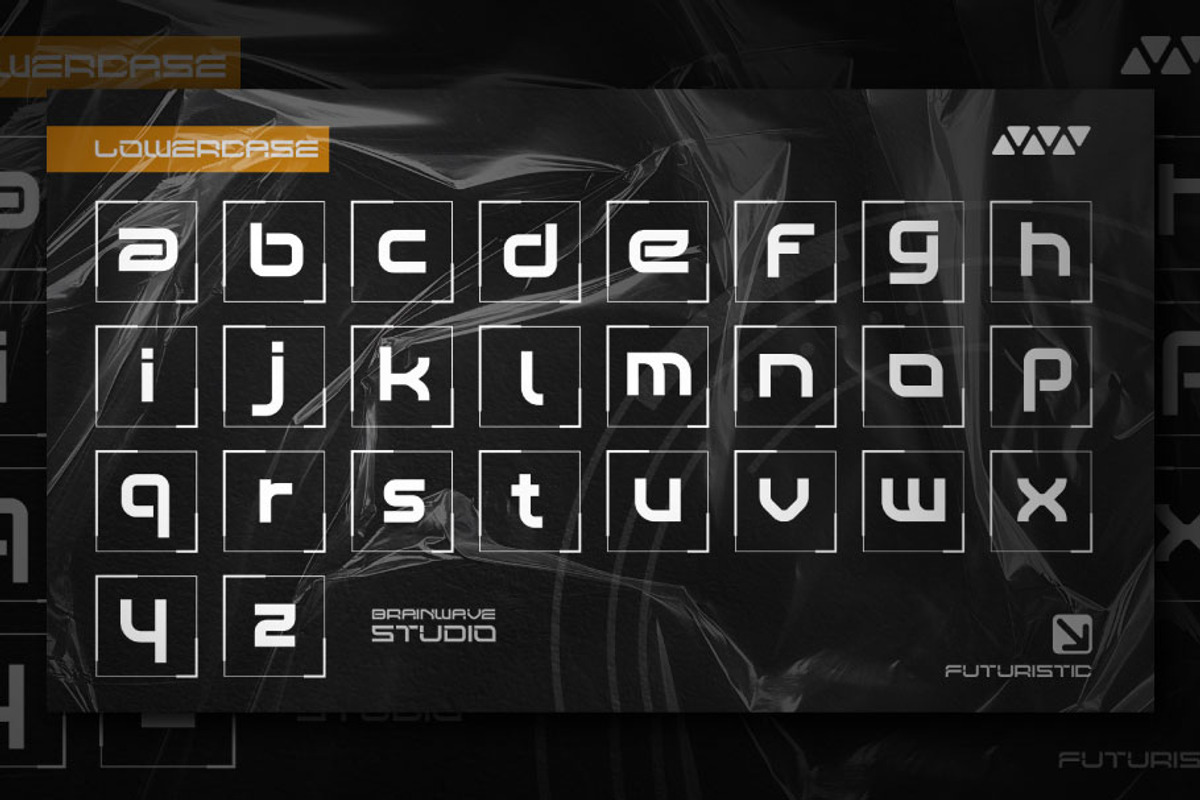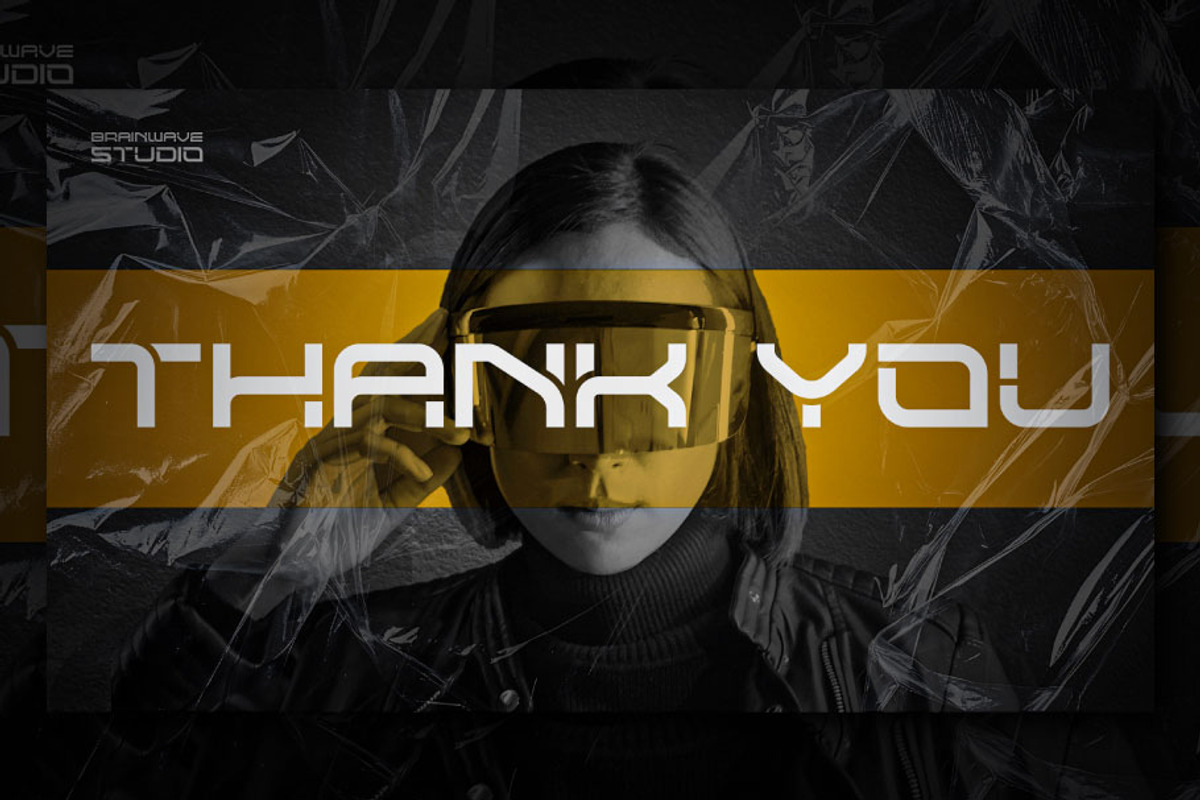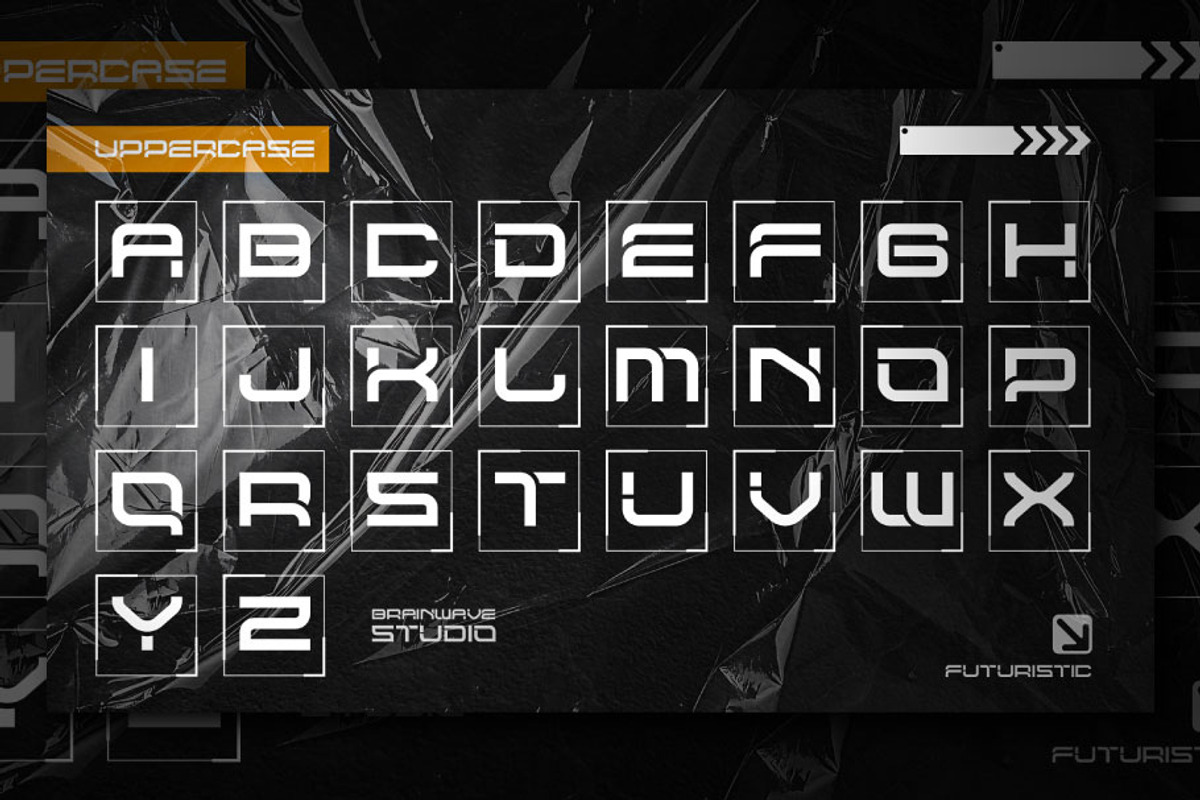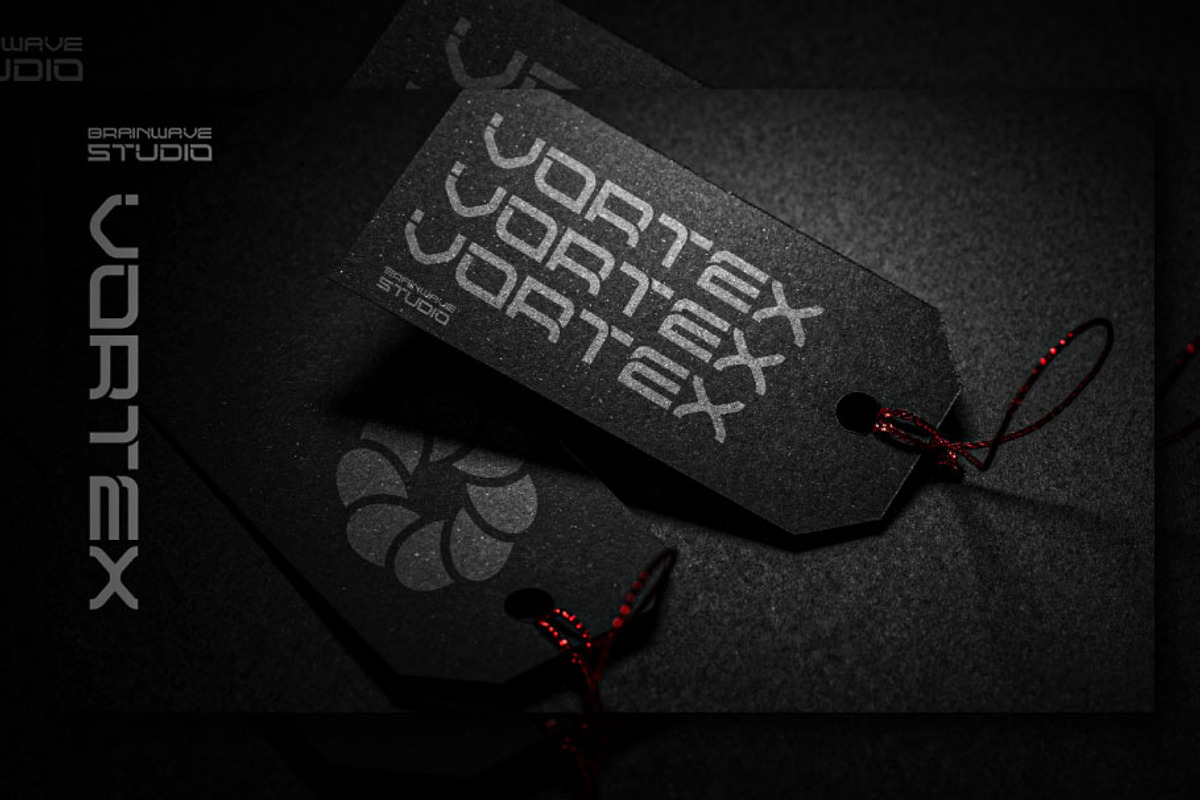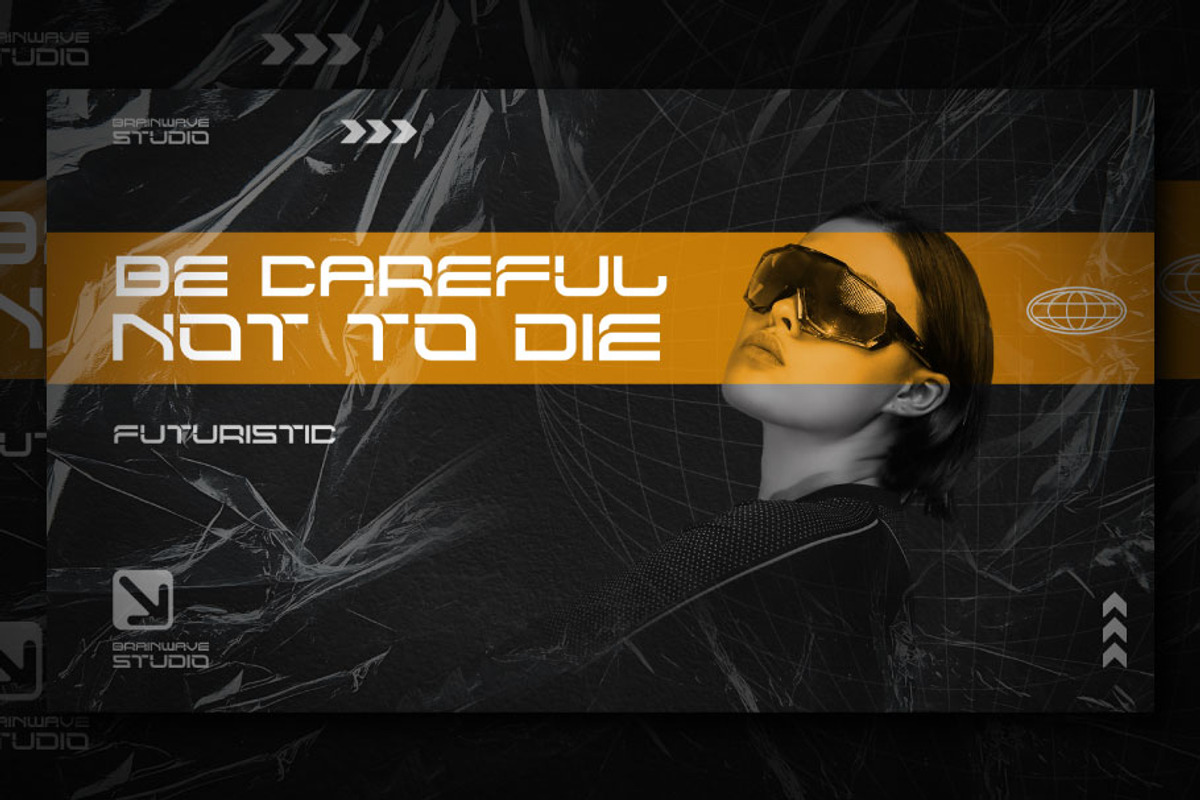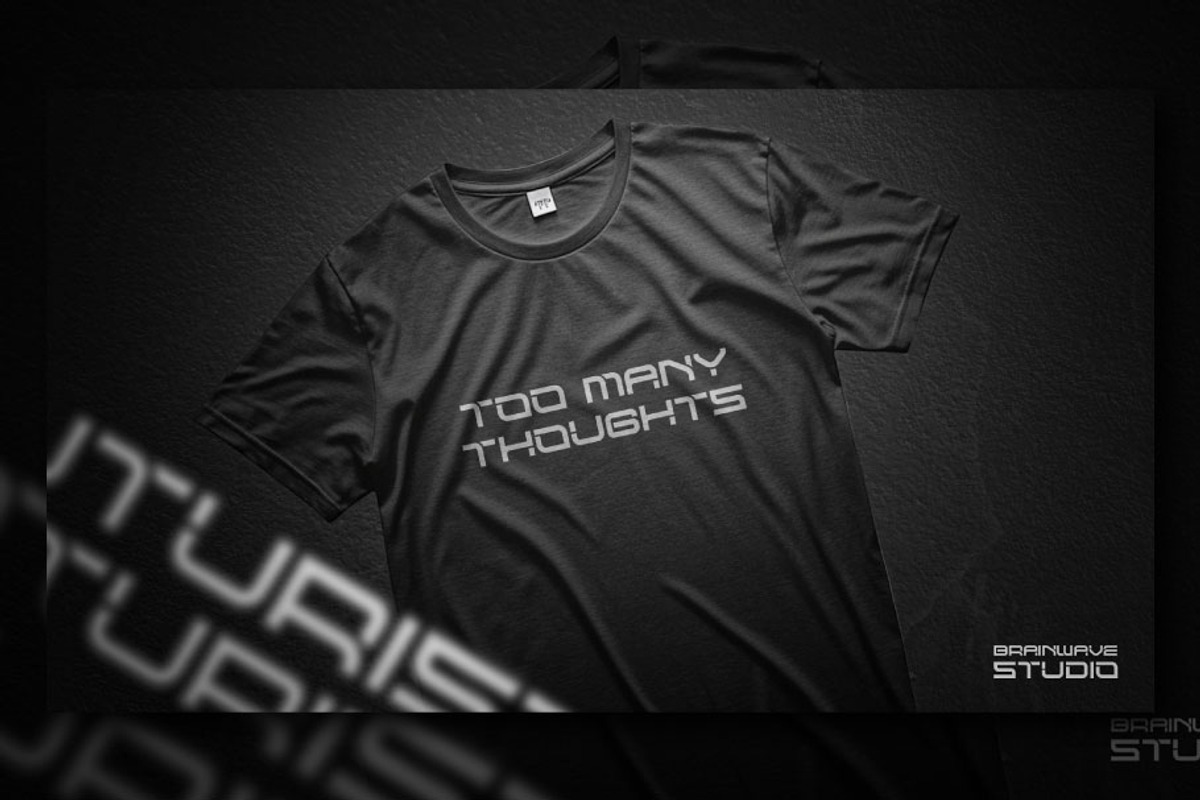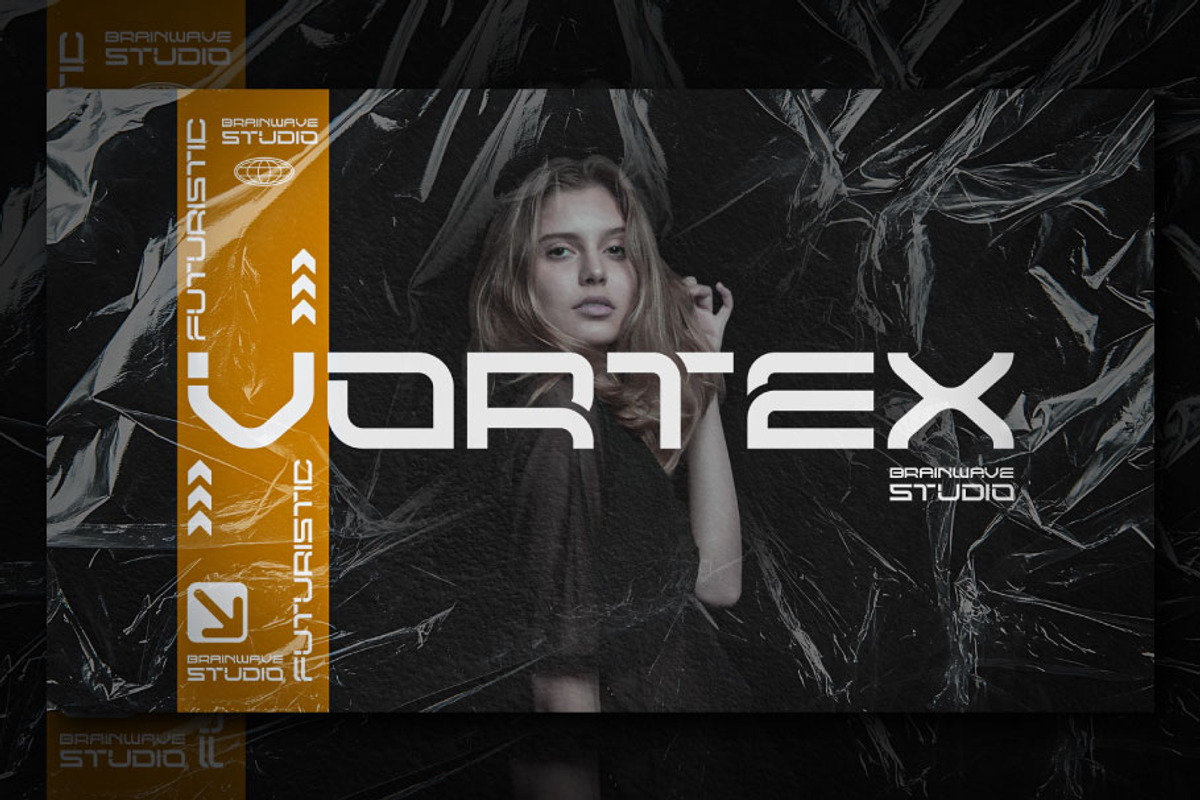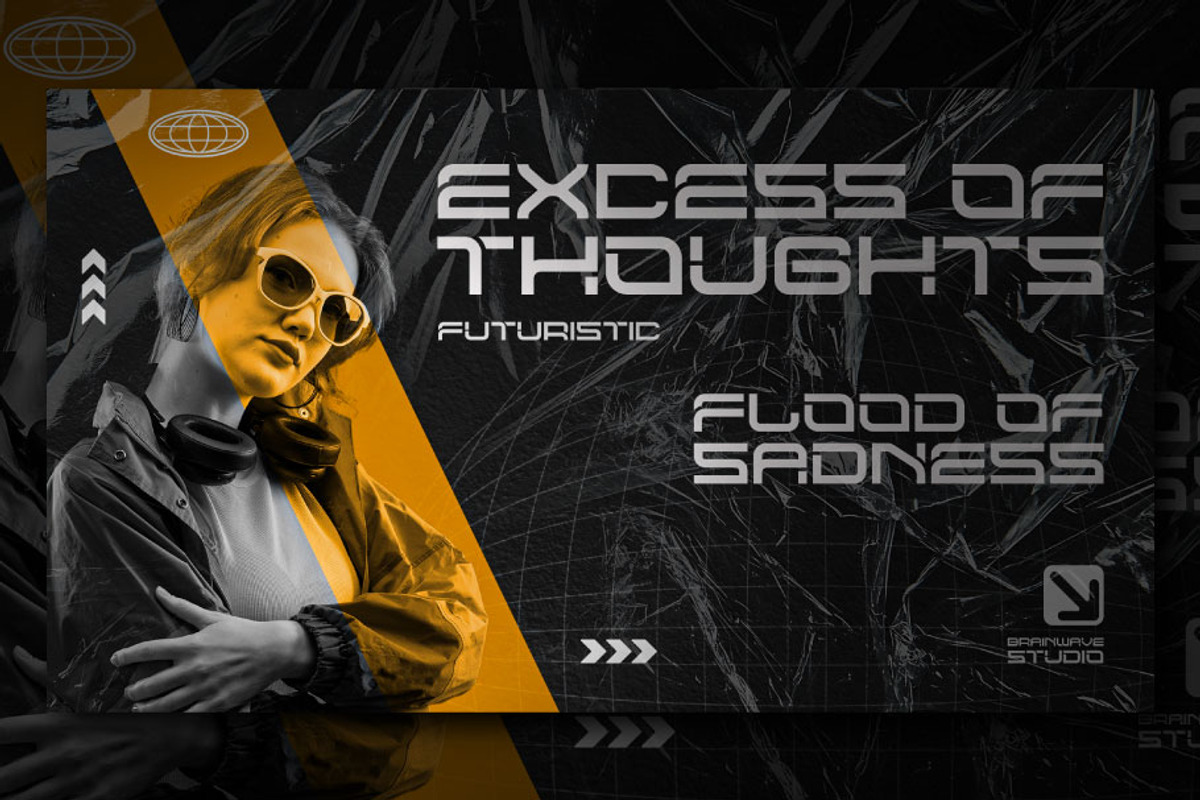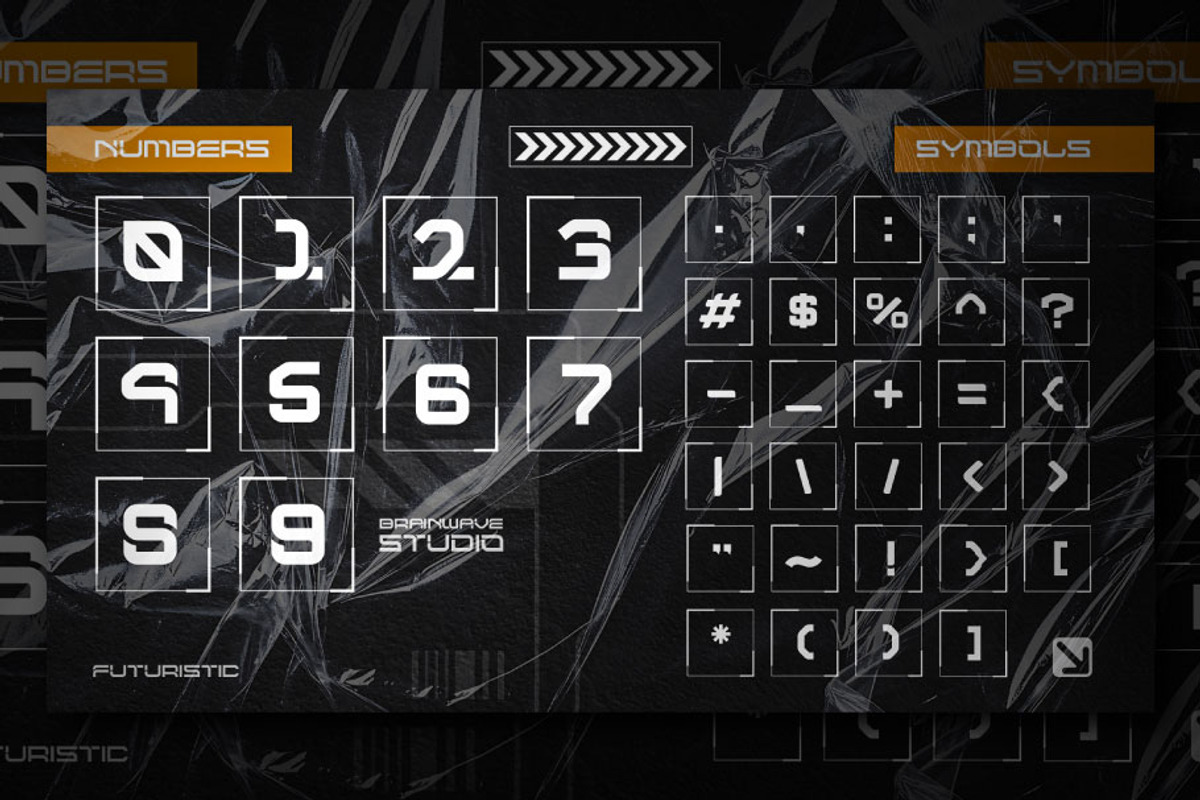
VORTEX - Futuristic Font Design
Vortex is a futuristic-inspired font designed to evoke a sense of innovation, advanced technology, and dynamic motion. Drawing from the essence of cutting-edge aesthetics, this font embodies the feel of a future where the boundaries of design and technology merge seamlessly. The name "Vortex" itself suggests a powerful, spiraling force that pulls elements together, symbolizing the inexorable progression of time and technological advancements.
The typeface's sharp lines, angular shapes, and sleek curves give it an appearance of speed and energy, much like the rapid evolution we associate with futuristic visions. The clean, minimalist structure ensures legibility while also offering a bold, modern look that stands out in any design. Vortex reflects a world where form and function meet, representing forward-thinking concepts such as digital transformation, space exploration, and cutting-edge innovation.
Its versatility makes it suitable for a wide range of applications—from branding and tech-related projects to sci-fi themes, video games, and digital media. Vortex can help communicate a sense of motion, progress, and high-tech sophistication, all while maintaining an air of boldness and readability.